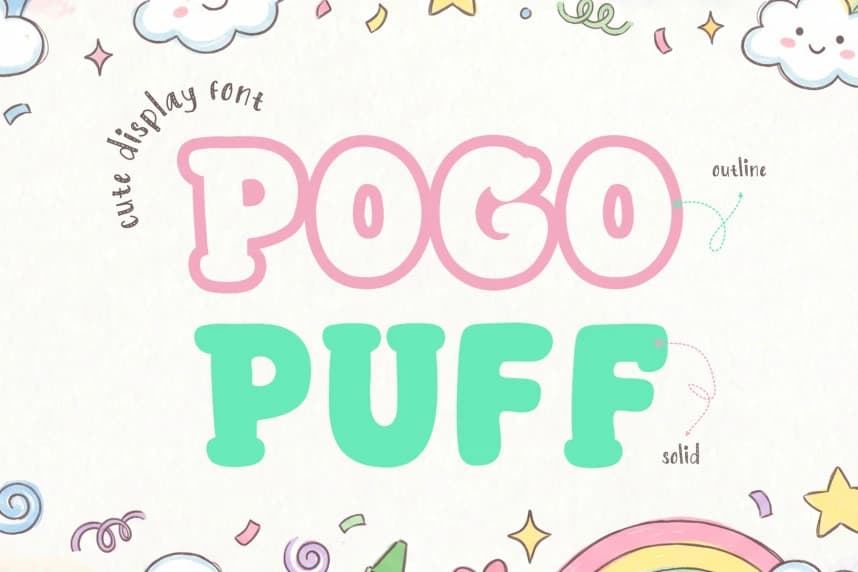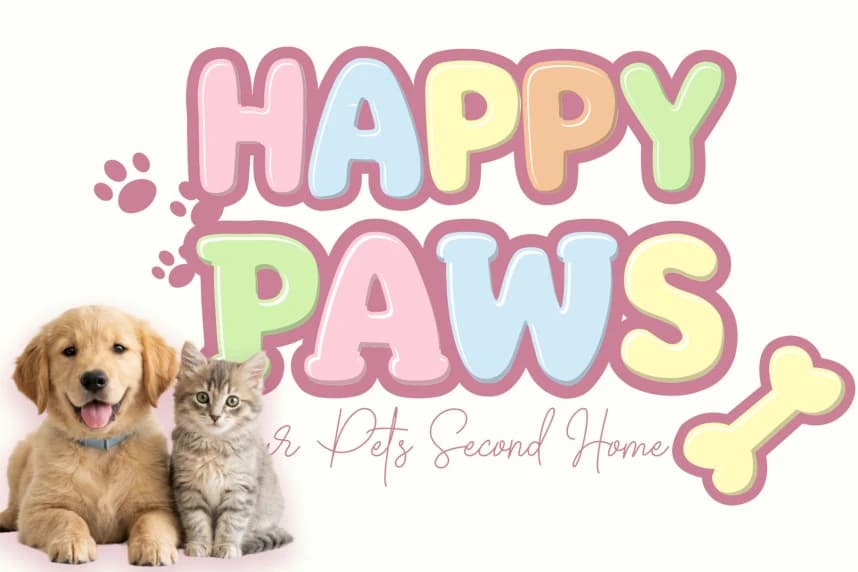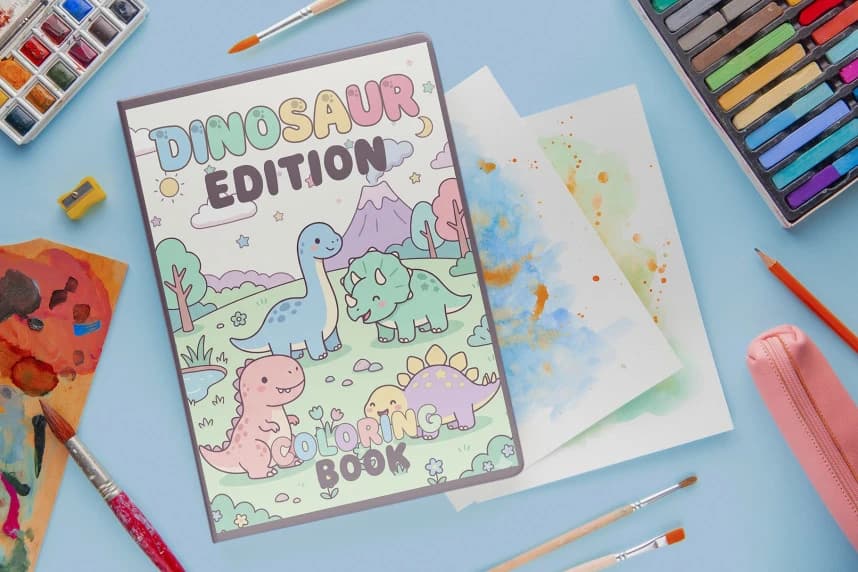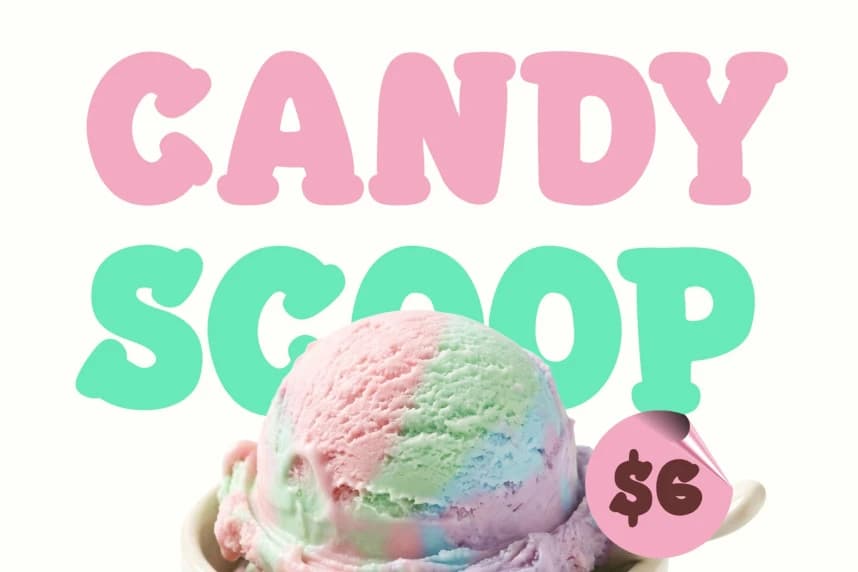
Pogo Puff Font
Pogo Puff Font is a playful display typeface featuring soft, rounded, and “puffy” letterforms that create a friendly and approachable look. Its thick curves and smooth edges give the font a bubbly, cartoon-like personality, making it feel cheerful and full of energy.